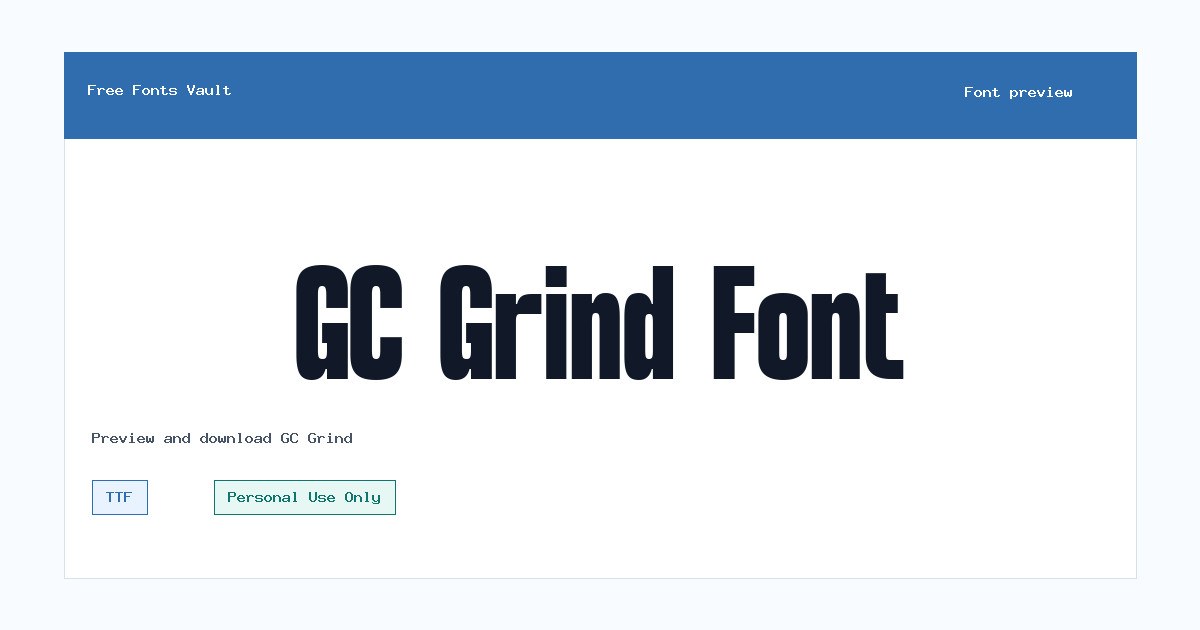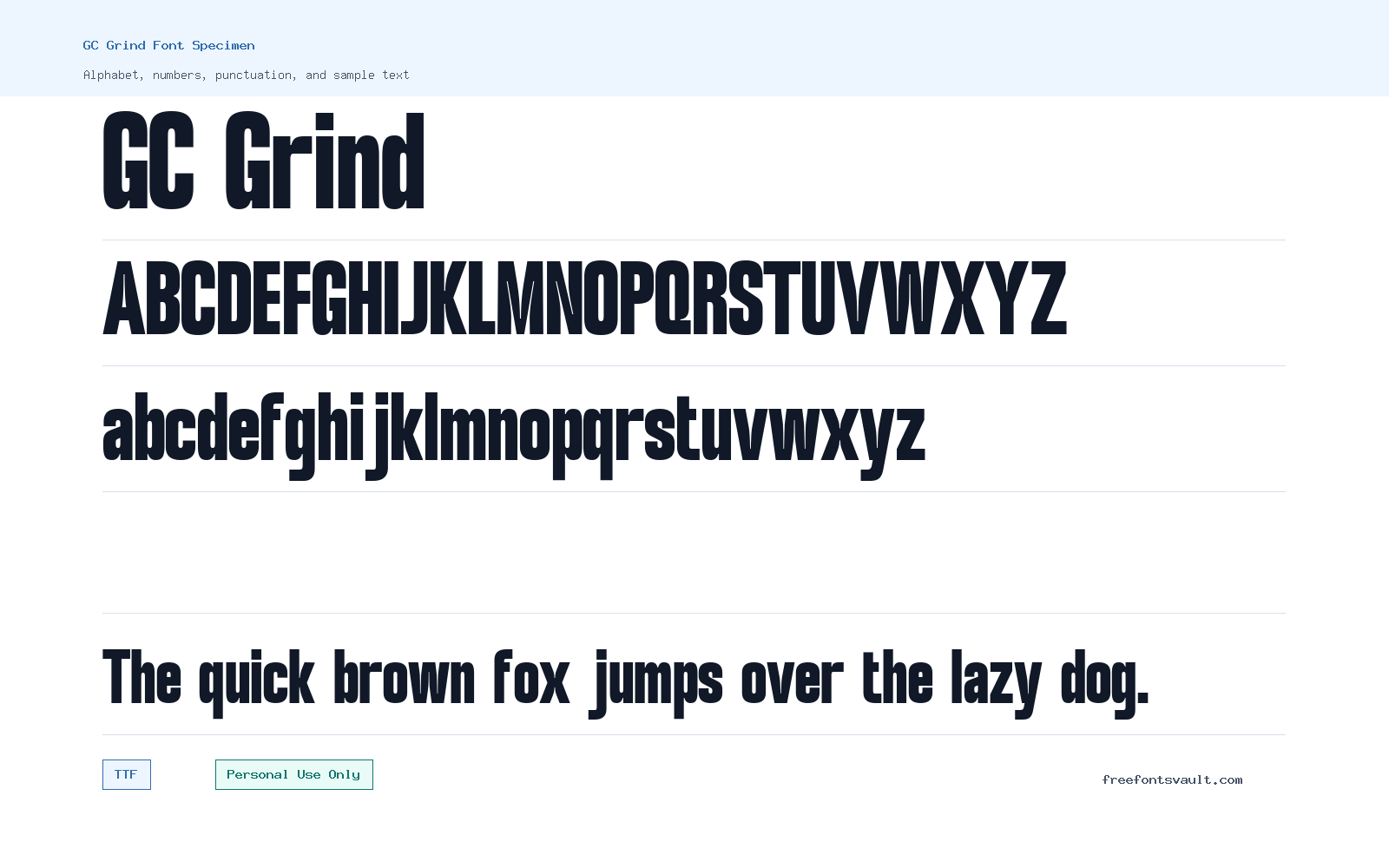
GC Grind
GC Grind font preview showing the family name
GC Grind Font
GC Grind font specimen showing alphabet, numbers, and sample text
• Designer Hanif Dwi Sulistyo of Glyphonic
• Foundry Glyphonic
GC Grind font.
GC Grind is a bold sans serif font with a strong display feel, made for short text that needs weight and impact. It is best tested in headlines, logo drafts, posters, and other places where large lettering matters more than long reading.
About GC Grind Font
• Bold sans serif display style suited to short, high-impact text
• Poster titles, headers, thumbnails, and social graphics
• Logo mockups, branding drafts, stickers, and short promotional text
GC Grind is credited to Hanif Dwi Sulistyo of Glyphonic.
What kind of font is GC Grind?
GC Grind is listed as a sans serif font and the demo file is marked with a bold 700 weight. It is most practical for display text rather than long paragraphs.
Who designed GC Grind?
The font is credited to Hanif Dwi Sulistyo of Glyphonic.